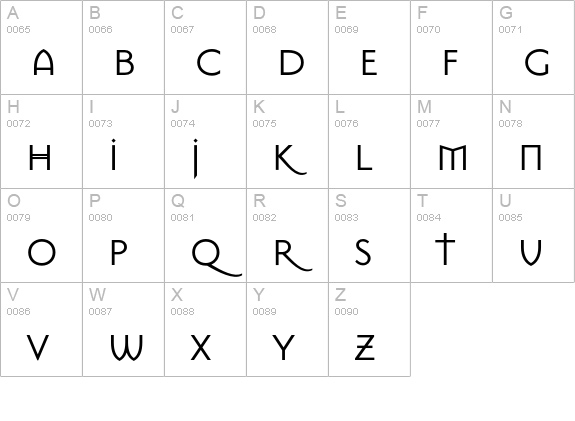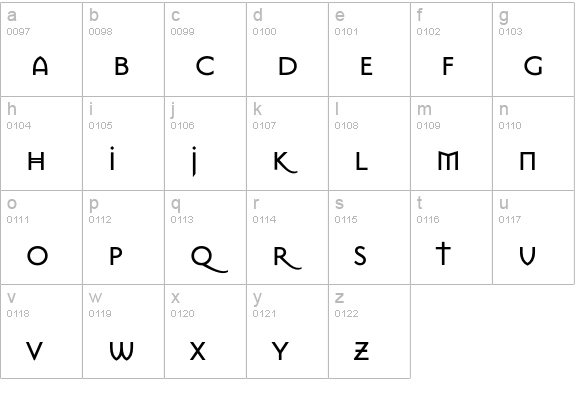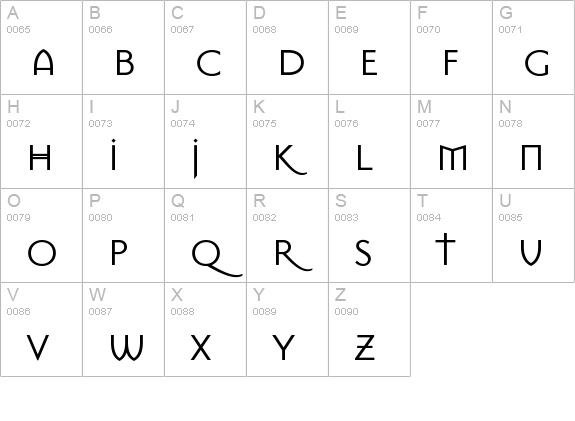
MasonSansRegular Font Details
MasonSansRegular is a modern and versatile font that effortlessly blends elegance with simplicity. Its clean lines and balanced proportions make it suitable for a wide range of creative projects, from branding and advertising to editorial design and web development. With its timeless appeal, MasonSansRegular brings a touch of sophistication to any design. Whether you are creating a sleek logo for a high-end fashion brand or designing a minimalist website layout, this font adds a refined and polished look to your work. One of the best aspects of MasonSansRegular is that it is free. Yes, you read that right! This stunning font is freely available to download at FontsMarket.com. So, not only do you get access to a high-quality typeface, but you also have the freedom to use it in your personal and commercial projects without any restrictions. The versatility of MasonSansRegular is truly remarkable. It comes with multiple weights and styles, allowing you to create dynamic typographic compositions that capture attention and convey your message effectively. Whether you need a bold headline or a subtle body text, this font has got you covered. The legibility of MasonSansRegular is exceptional, making it a fantastic choice for both print and digital media. Its well-defined letterforms ensure that your content is easily readable, even at small sizes or low resolutions. If you are looking for a font that combines elegance, versatility, and affordability, MasonSansRegular is the perfect choice. Download it for free at FontsMarket.com and elevate your designs to a whole new level.